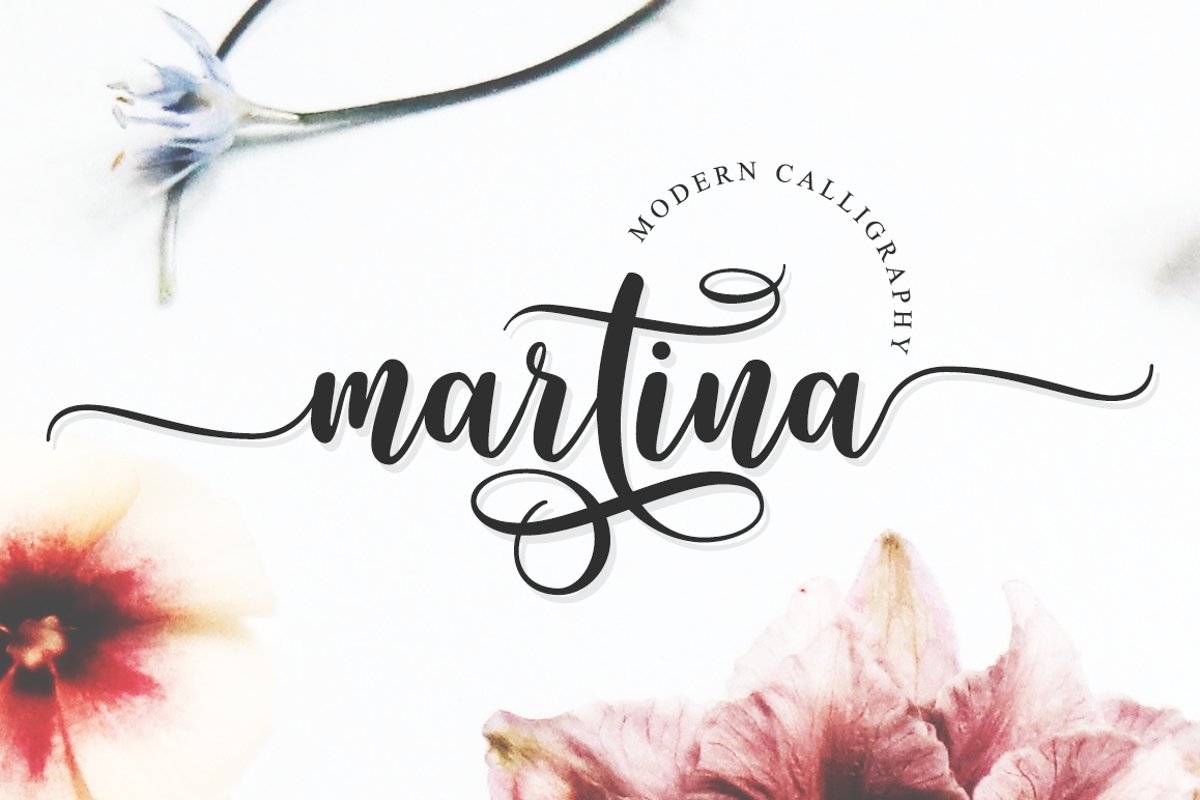
Created By Suby Studio
Martina
Martina is a cute and fresh calligraphy font. Great for greeting cards, branding materials, business cards, quotes, posters, and more!